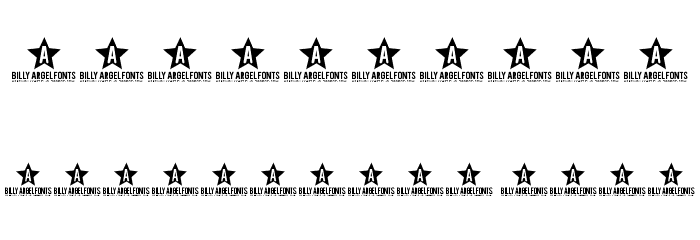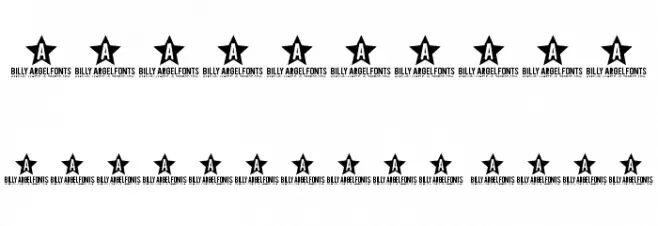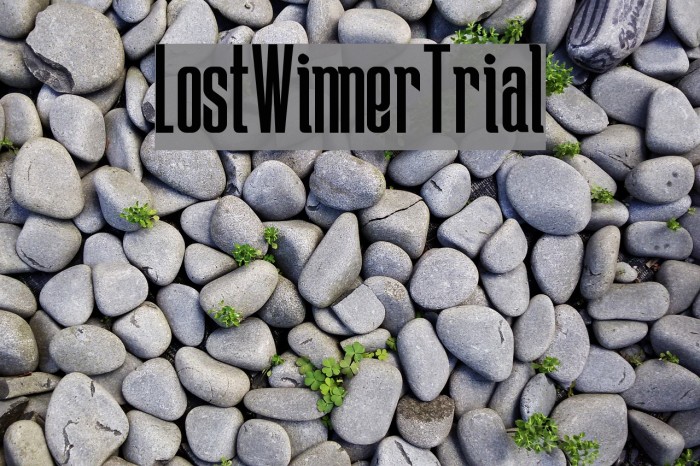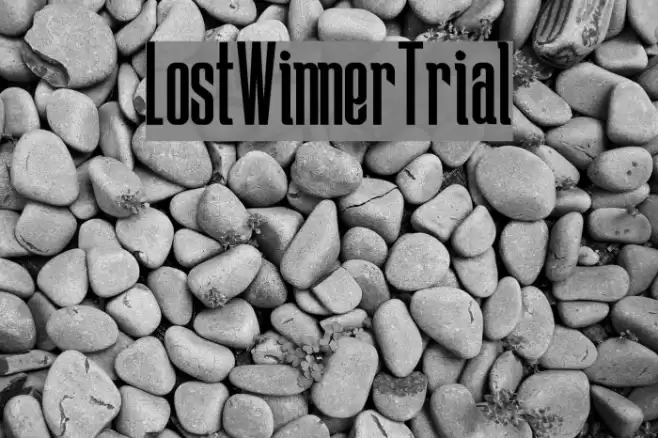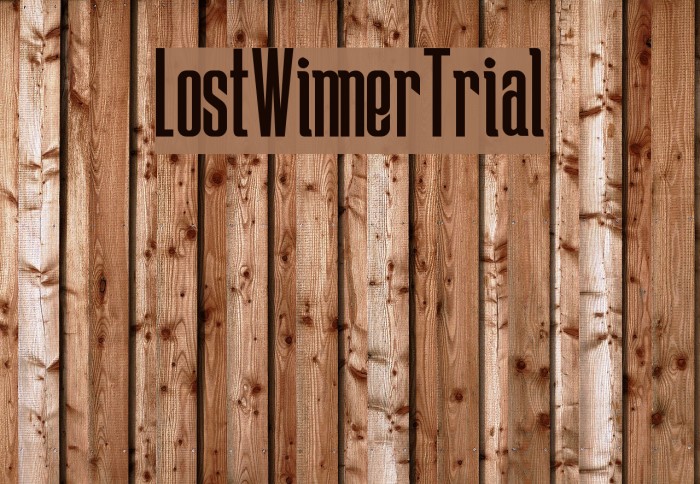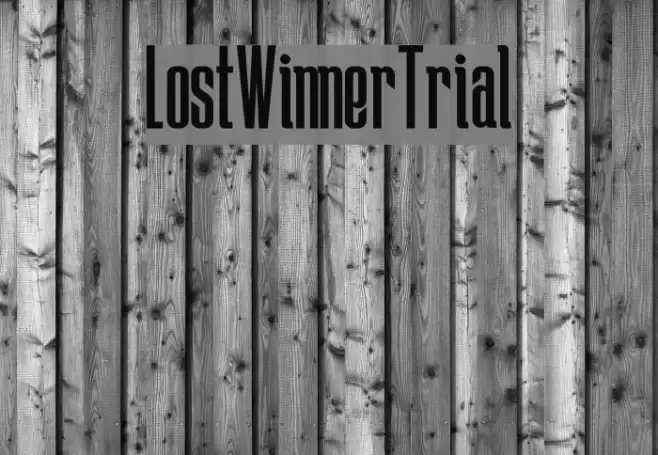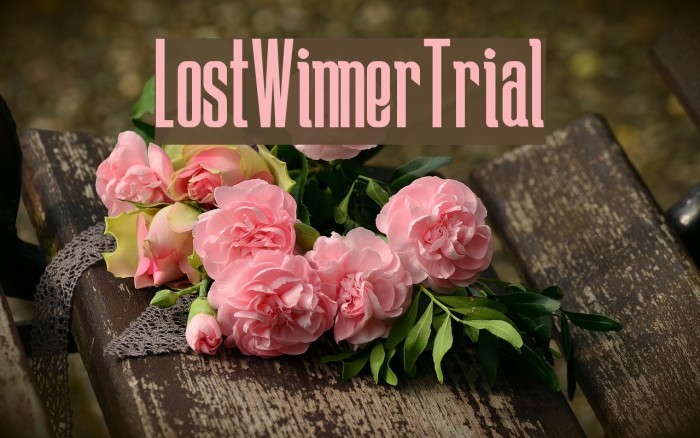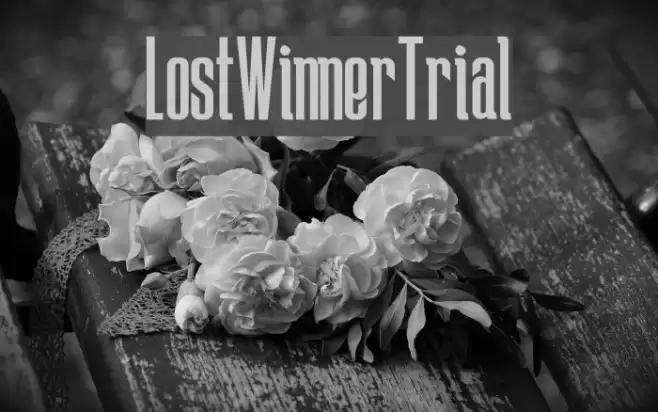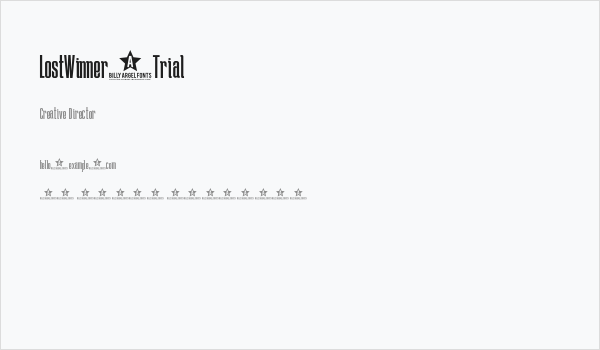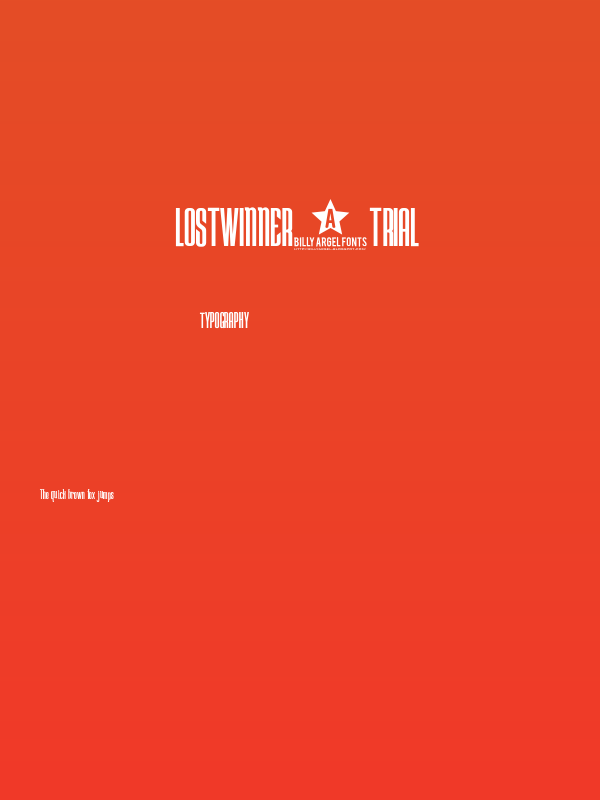
LostWinner-Trial Font
LostWinner-Trial Description
This font features a bold and striking design with elongated vertical lines and sharp edges, giving it a modern and impactful appearance. The uppercase letters are tall and narrow, creating a sense of height and elegance, while the lowercase letters maintain a consistent style with slightly more rounded forms. The numbers and special characters follow the same design principles, ensuring uniformity across all glyphs. The font's unique style makes it suitable for attention-grabbing headlines and titles, where a strong visual presence is desired. Its distinctive look is both contemporary and versatile, making it adaptable for various design projects.
Proposed ProjectsIdeal for headlines, posters, branding, and any design requiring a strong visual impact.